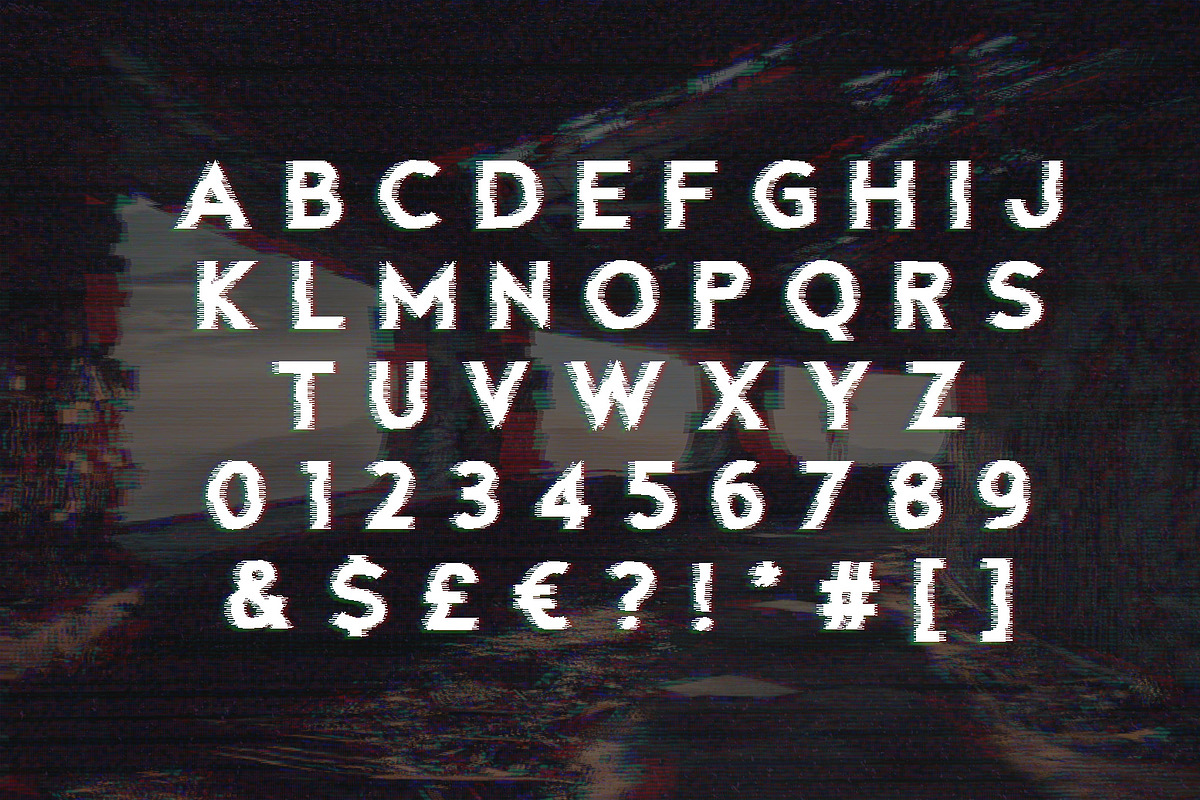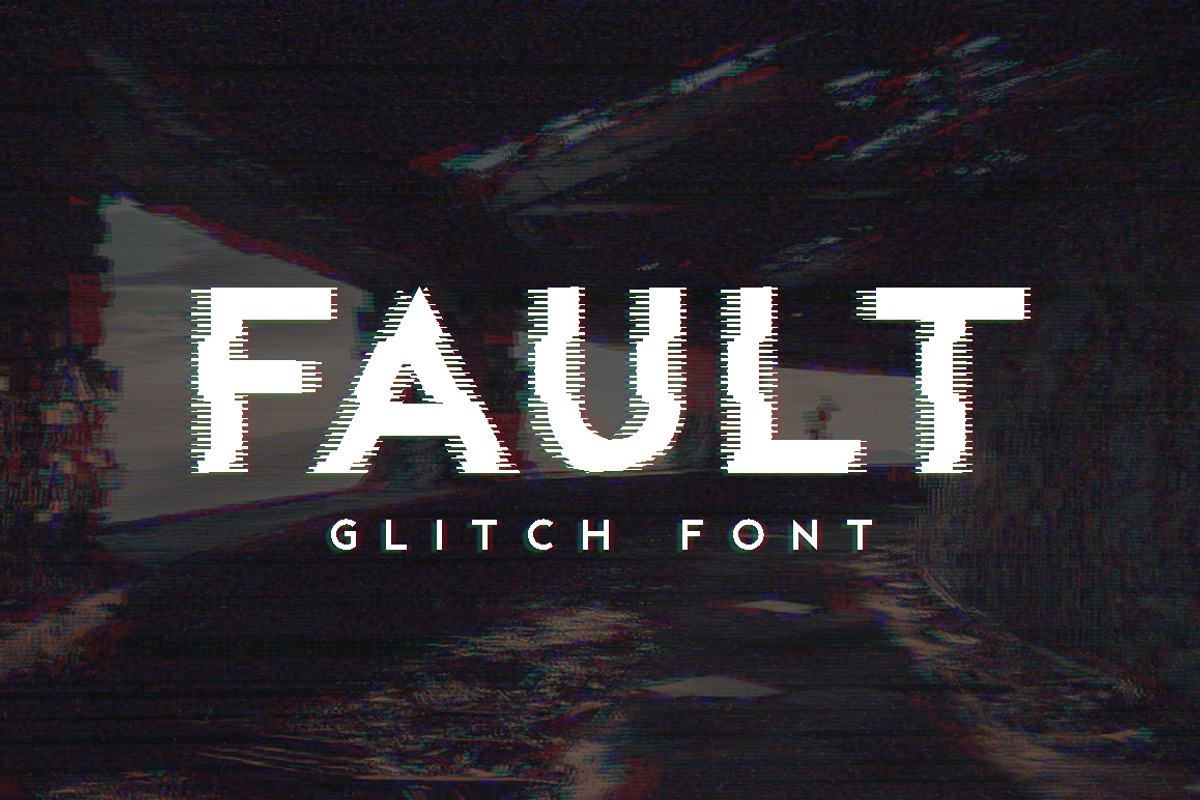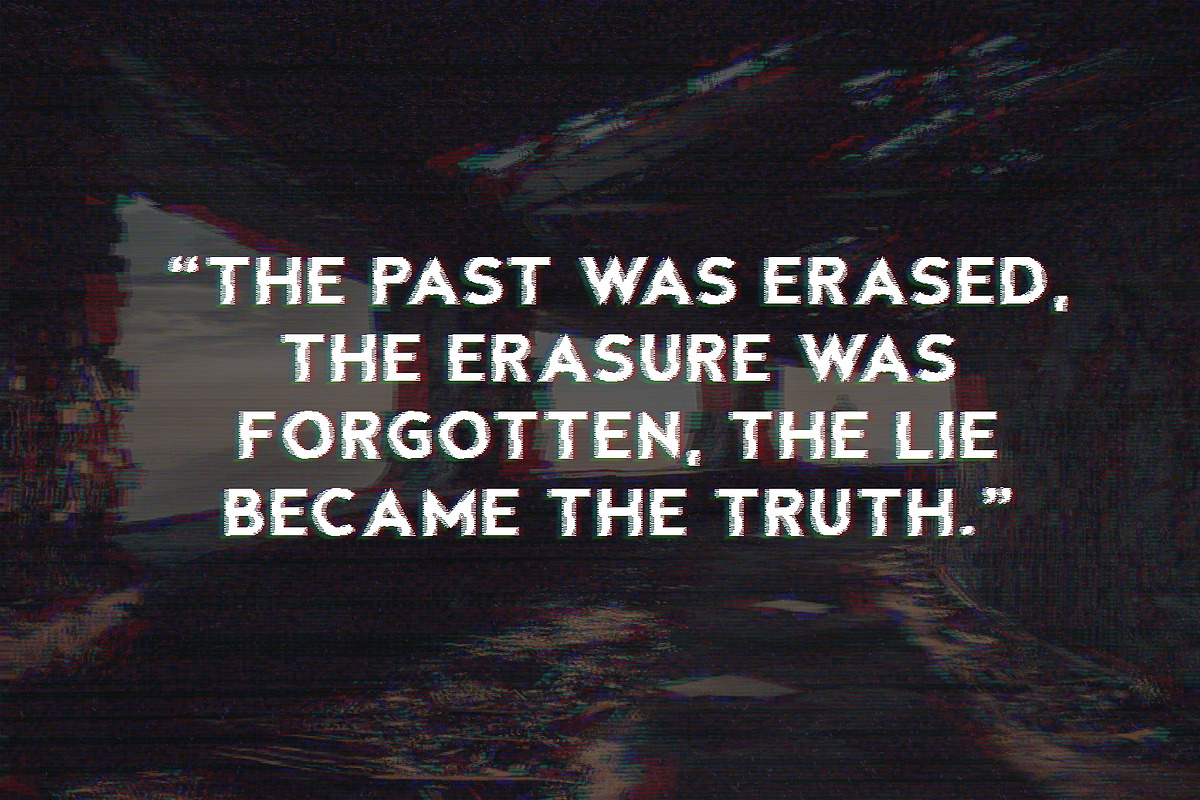
Fault - Glitch Font
Fault is a premium distorted glitch font ideal for gaming, music and movie posters or other graphics. It features all uppercase letters, numbers and common symbols.
Each sans serif letter has been individually distorted in stages, using detailed high resolution effects. The distortion consists of two large glitch effects followed by a very fine 'fuzzy' glitch effect around each letter.
Inspired by science fiction movies and games, Fault is a beautiful, highly detailed display font that will take the hassle out of creating a glitch text effect.